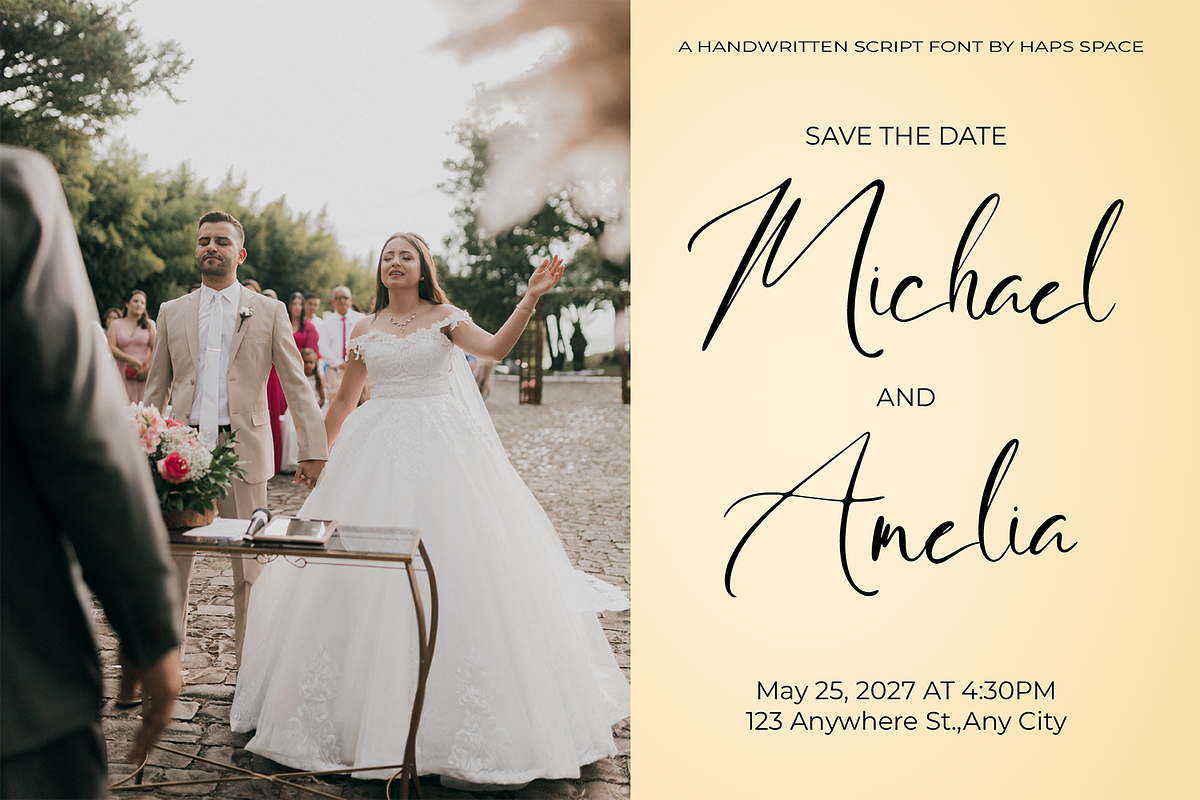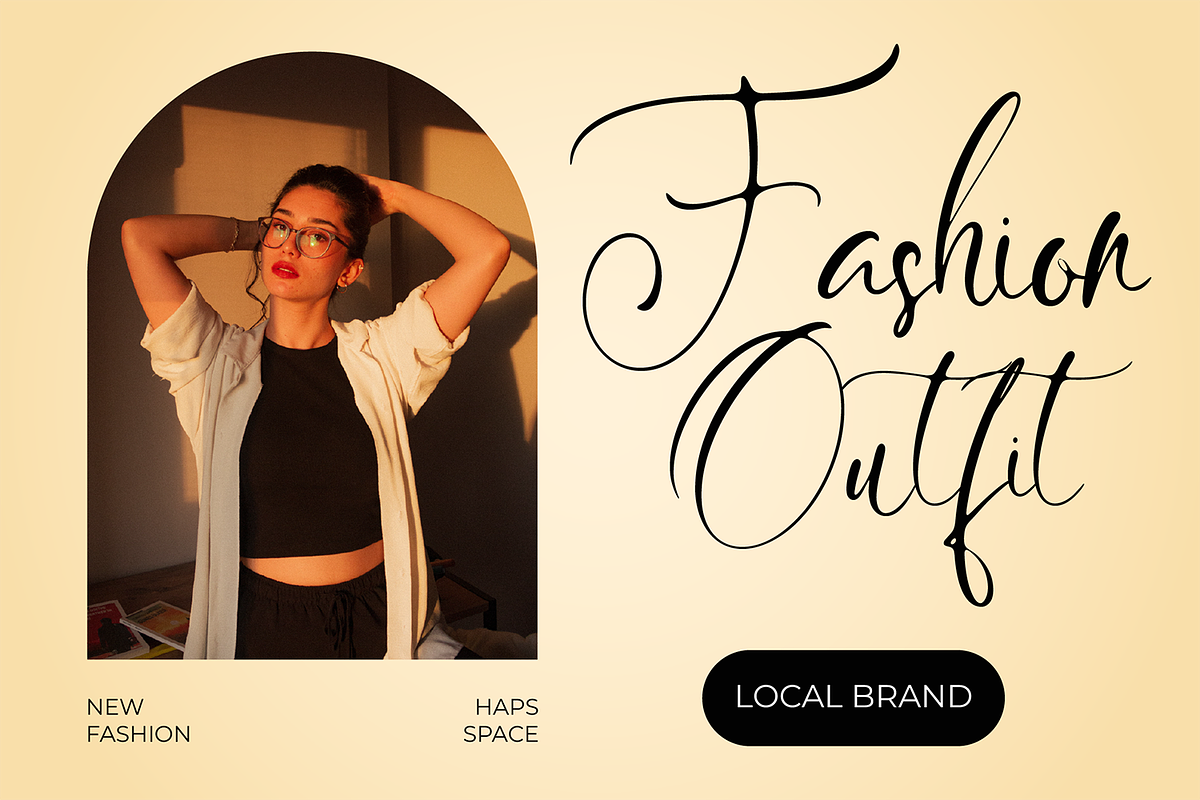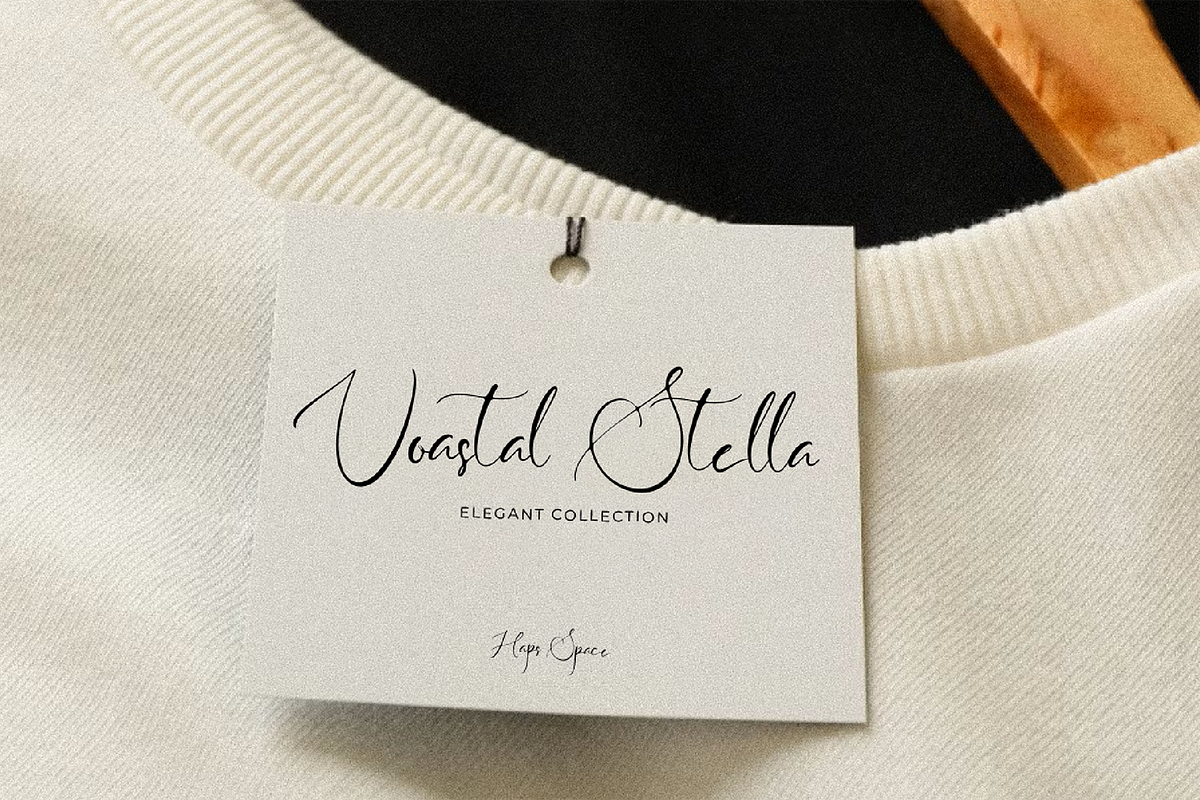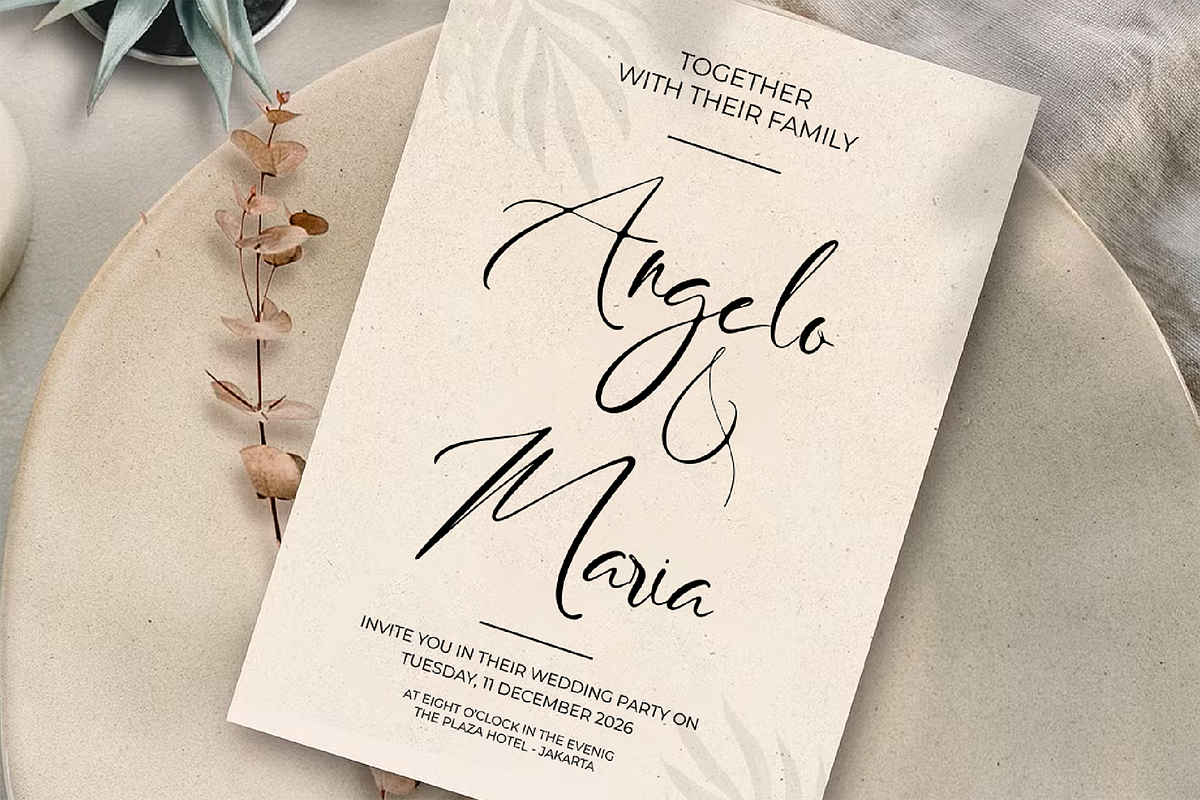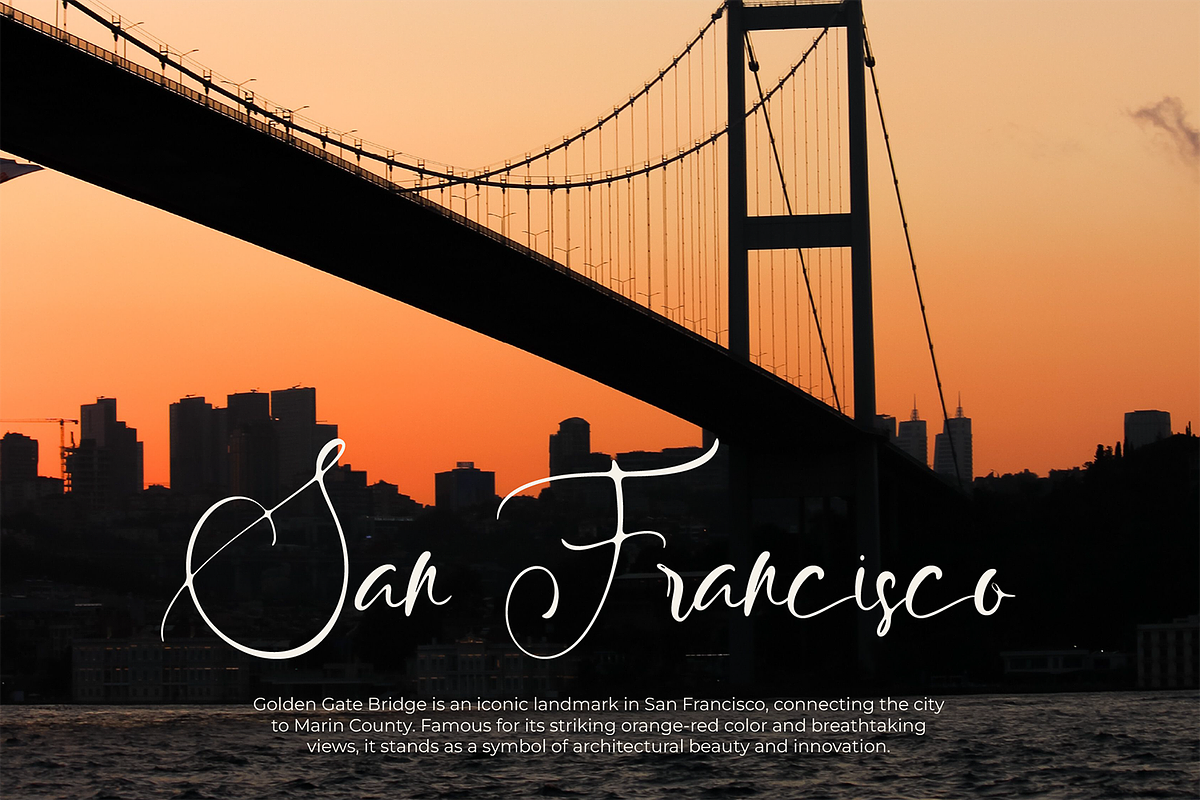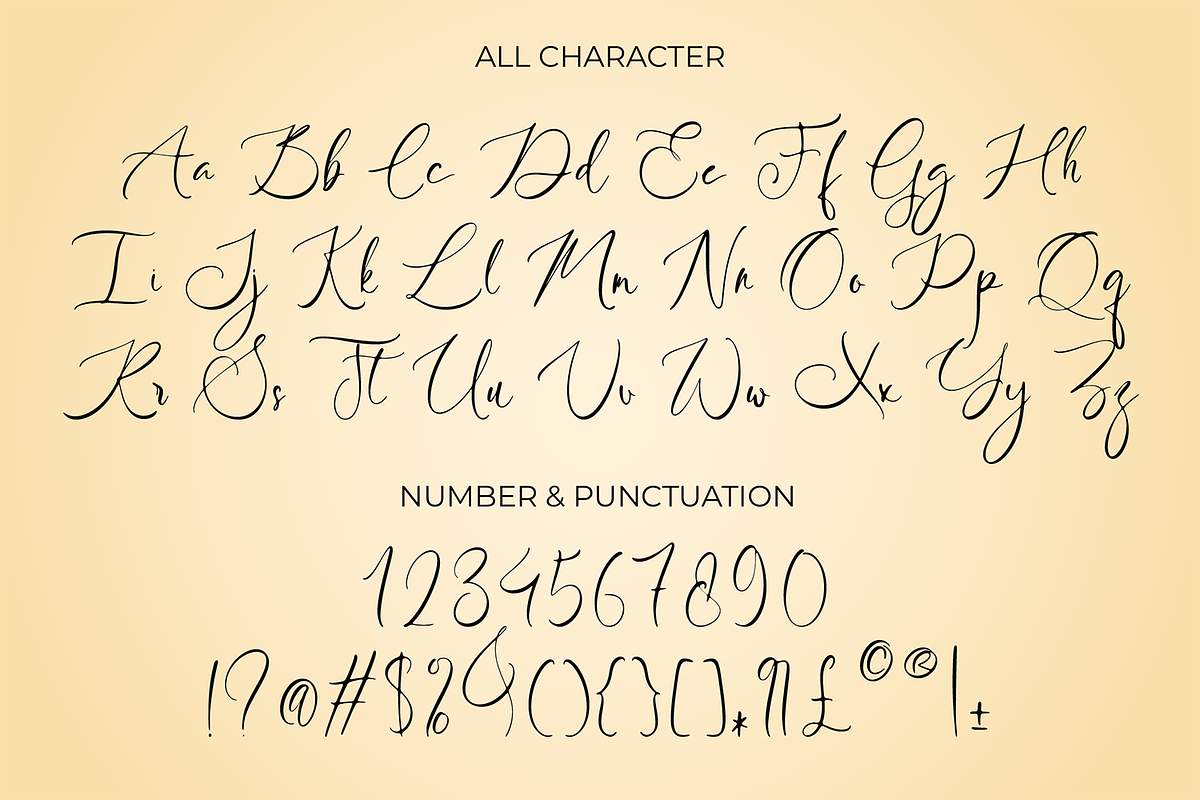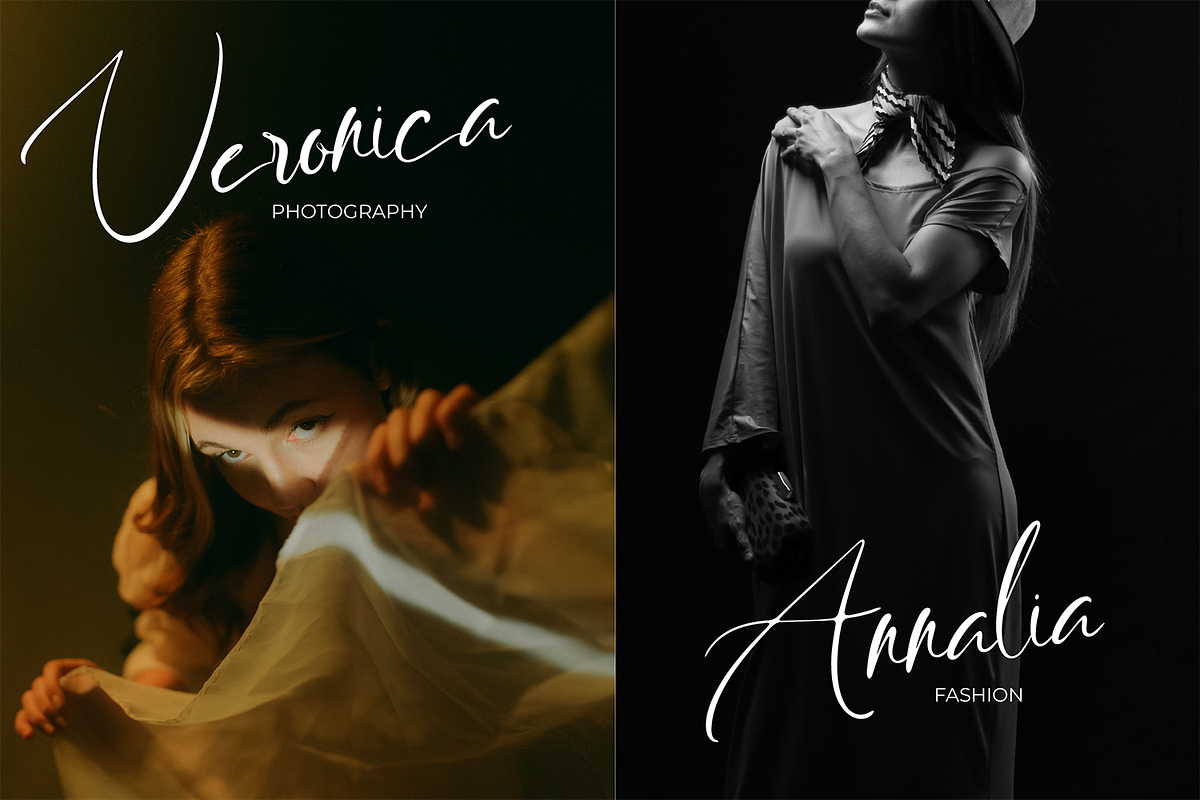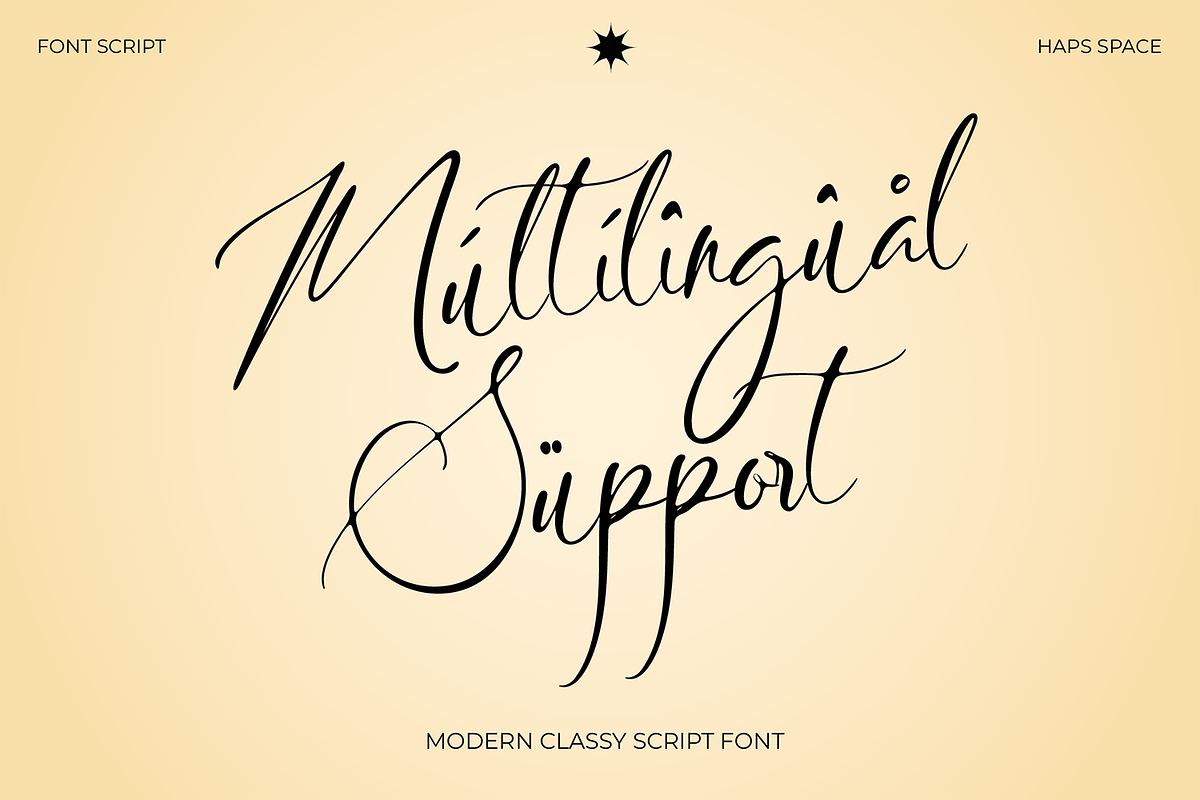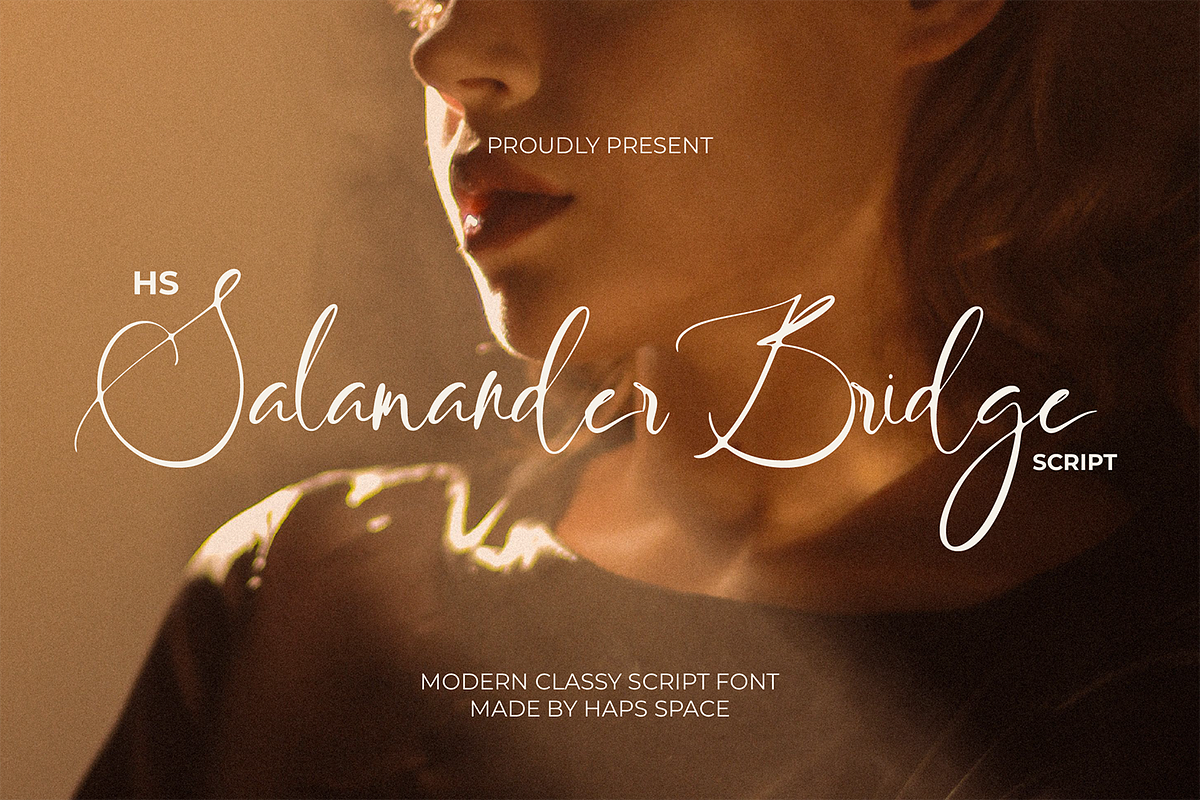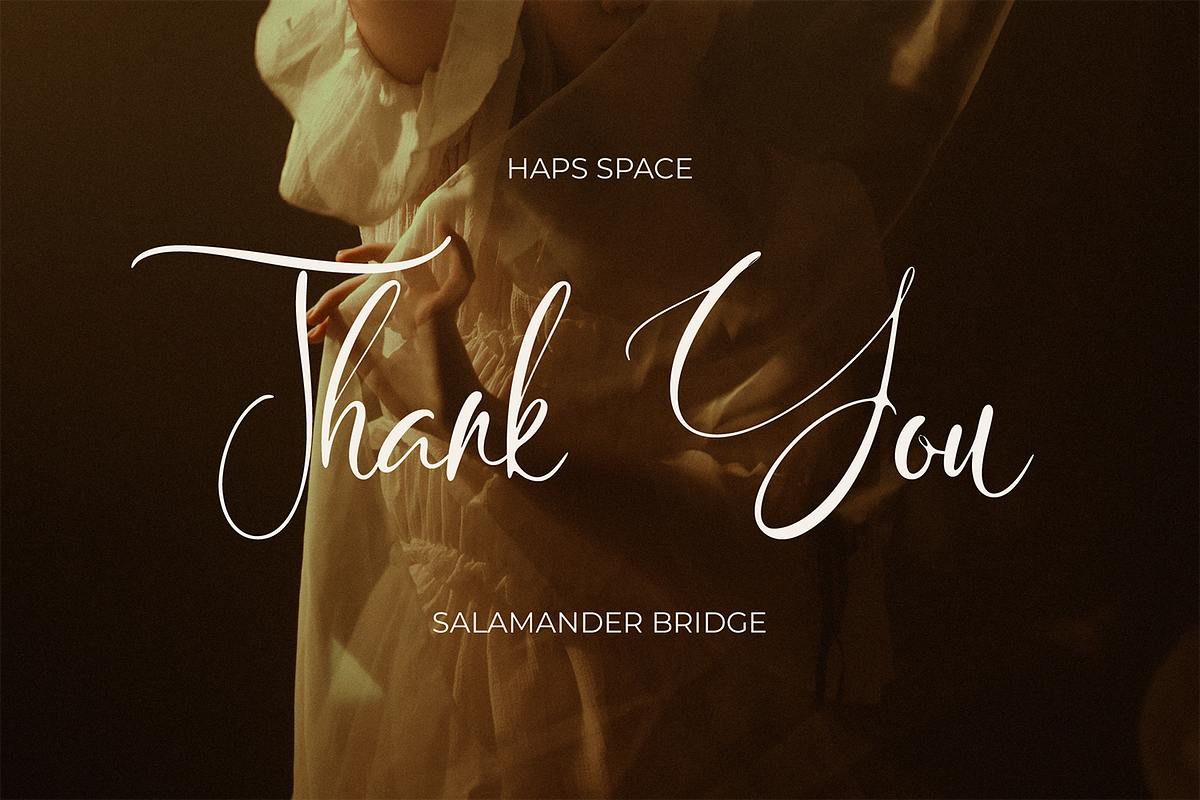
Salamander Bridge Classy Script
Salamander Bridge is an elegant, modern classy script font designed to bring sophisticated charm and effortless grace to contemporary design projects. Featuring fluid mono-line strokes, expressive swashes, and stylish calligraphic flourishes, this typeface captures a refined aesthetic that instantly elevates display typography.
Crafted with high attention to detail, HS Salamander Bridge is ideal for design layouts that require a romantic, chic, and high-end artistic touch.
- Complete Character Set: Includes full Uppercase and Lowercase script letterforms.
- Numbers & Punctuation: Complete set of numerals, standard symbols, and punctuation marks.
- Stylistic Alternates & Ligatures: OpenType features for creating seamless, natural handwriting flow.
- Multilingual Support: Accented characters supporting various European and Latin-based languages.
Ideal Applications:
- Luxury Packaging: Adds an elegant touch to cosmetic containers, perfume packaging, labels, and artisanal goods.
- Editorial Layouts: Perfect for fashion magazines, lookbook titles, covers, and digital publications.
- Social Media Content: Standout typography for aesthetic quotes, Instagram posts, Pinterest graphics, and story overlays.
- Event Styling: Beautiful typography for event invitations, place cards, menu headers, and decorative signage.
- Digital Art & Merch: Ideal for quote art, graphics, luxury product displays, and creative visual assets.